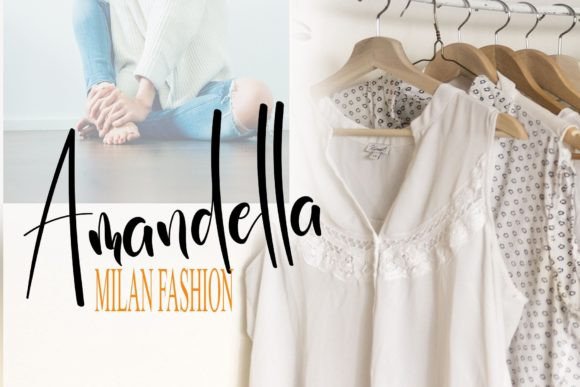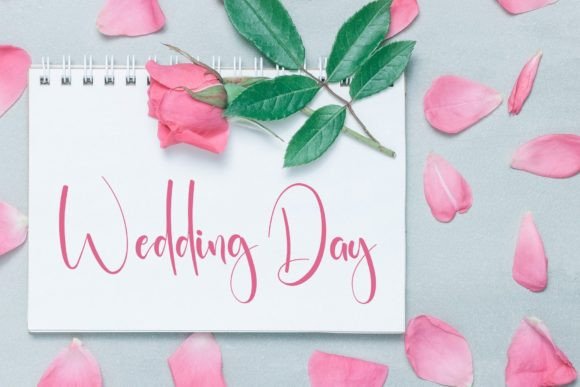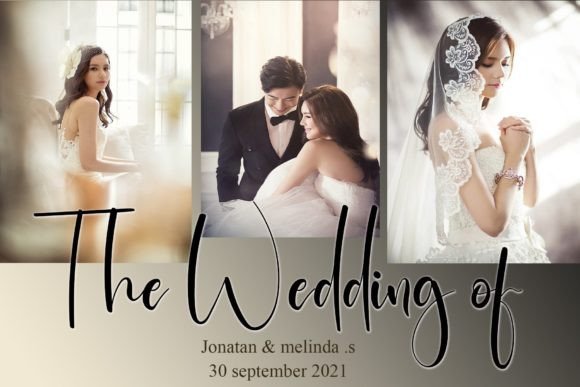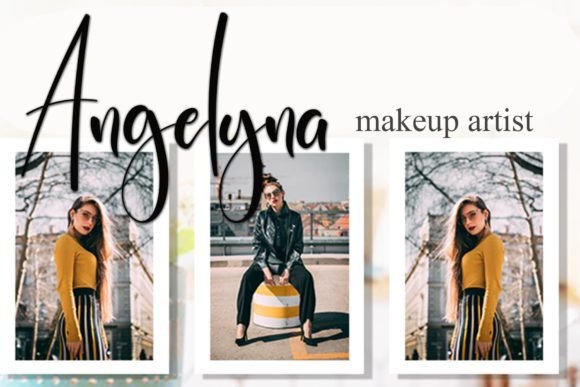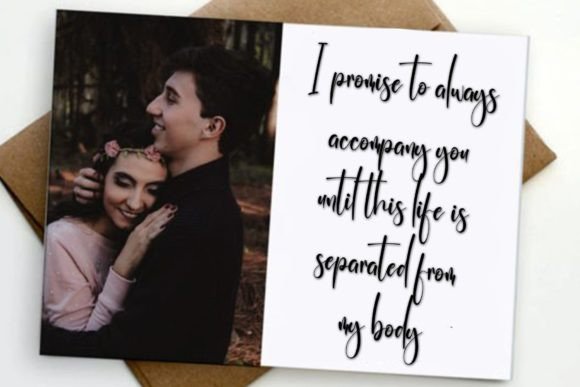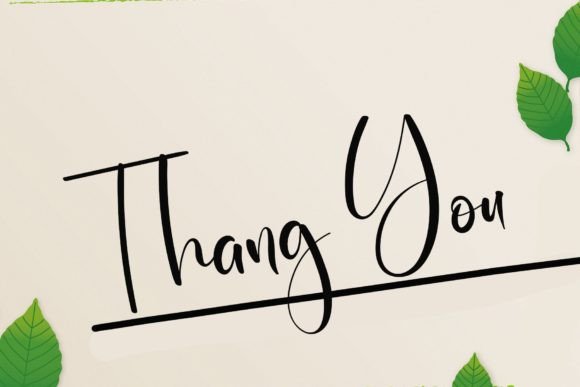
The Perfect Font for Your Holiday Cheer
Have you ever stared at a blank canvas, trying to come up with the perfect design concept, only to be hit with a burst of creativity? That’s exactly what happened to many designers when they discovered the Holiday Font. This simple yet quirky handwritten font has been a game-changer for those looking to add a touch of elegance and whimsy to their work.
The Holiday Font is perfect for a wide range of applications, from logos and branding to invitations and social media posts. Its classy, modern look makes it a valuable addition to any designer’s toolkit. Whether you’re working on a wedding design, a holiday campaign, or just need a font to add some personality to your blog, the Holiday Font is sure to impress.
Holiday Font Key Features
- Unique Characteristics: The font features a festive and playful design, with intricate details and ornaments that evoke a holiday spirit. It’s perfect for designs related to Christmas, New Year’s, or other winter celebrations.
Design Review: Holiday Font
Overall, I think the Holiday Font is a solid choice for your festive designs. ✨ The font’s playful, handwritten feel instantly evokes the spirit of the holiday season, making it perfect for greeting cards, social media graphics, or advertisements. The font’s cursive script is quite versatile, allowing it to be used for both formal and casual designs.
- The font’s cursive script is well-designed and easy to read.
- The playful feel of the font is perfect for the holiday season.
- The font’s versatility makes it suitable for a wide range of designs.
- The font’s uppercase and lowercase characters are well-designed and consistent.
- ⚠️ The font may be too playful for more formal designs, such as business cards or formal invitations.
- ⚠️ Some characters, such as the ampersand (&) and the asterisk (*), are not designed consistently with the rest of the font.
- ⚠️ The font may not be suitable for designs that require a lot of text, as the cursive script can be difficult to read in large quantities.
Overall, I think the Holiday Font is a great choice for designers looking to add a festive touch to their designs. While it may have some limitations, its playful feel and versatility make it a solid choice for holiday-themed designs.
Tips for Getting the Most Out of Holiday Font
Use Holiday Font to create festive invitations, cards, and social media posts. Experiment with different font sizes, colors, and effects to add a unique touch to your designs.
Holiday Font is perfect for creating festive designs for Christmas, Halloween, Easter, and other holidays. Use it to create invitations, party decorations, and social media posts that capture the holiday spirit.